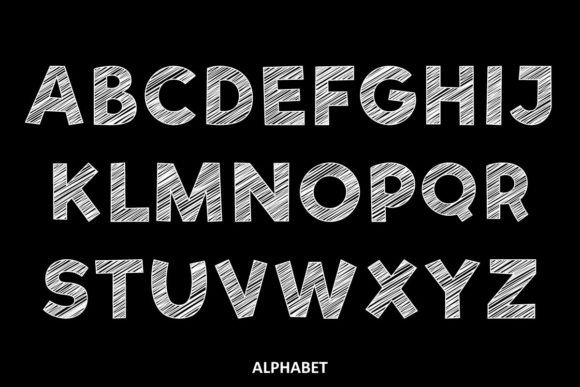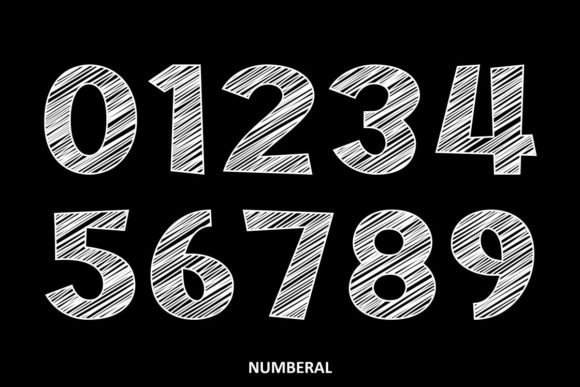
Chalk Handwriting Font
Introducing “Chalk Handwriting” – is a great sketch display font. It’s suitable for chalk writing and it’s the perfect font for school-themed projects. It works great for creating cool designs that scream for attention. It’s ideal for anything ranging from t-shirts, book designs, restaurant menus, blog writing, and greeting cards to stickers, or anything that needs a casual touch. Fall in love with its incredibly cool style, and use it to create lovely designs!